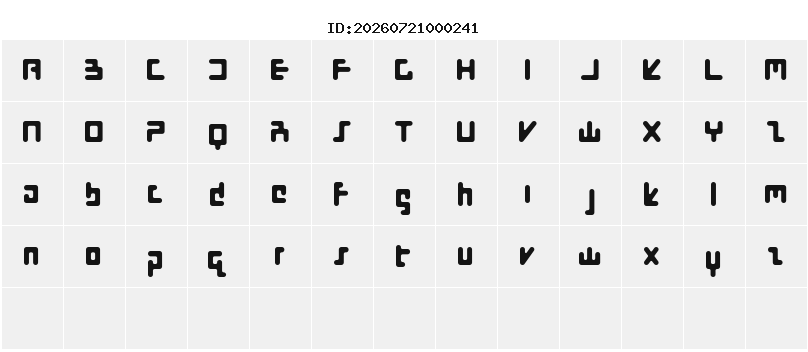
Flotsam Stiff Upper Preview
• Font Name: Flotsam Stiff Upper
About Flotsam Stiff Upper.ttf
Flotsam Stiff Upper.ttf is a modern, elegant sans-serif font designed for ultimate readability and visual harmony. Perfect for branding, headlines, web design, and print materials.